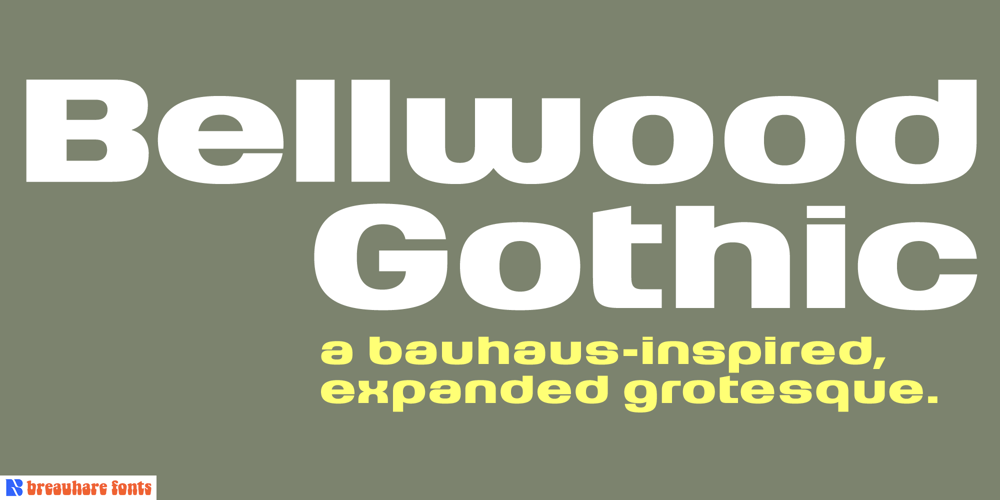
Bellwood Gothic Font Family was designed by Harry Warren and published by Breauhare. Bellwood Gothic contains 1 styles and family package options. Bellwood Gothic™ is an unorthodox but happy pairing of upper and lowercases that breaks typographic rules: its capitals evoke traditional early 20th century styling and strength. Lowercase displays a softer, more warm and friendly flavor that points to a Bauhaus aesthetic. But for some strange reason they work so well together! Therein lies the mystique of this font.Overall it isn’t strictly uniform in stroke but shows some variation of color.The sofa poster includes a cameo appearance by breauhare’s own popular Daddy’s Hand™ font.Bellwood Gothic’s nostalgic Hormel flavor of the 1960s & 1970s (no pun intended) still conveys a modern look that lends itself to sports, fashion, lifestyle and more. The wide track of the lettering helps short words easily fill spaces. Includes stylistic alternates for the lowercase a, e, & l (L), plus 13 uppercase letters!Among OpenType features are Stylistic Alternates, Stylistic Sets, Ligatures, Fractions, & Case-sensitive forms.Extended support for Western, Central, and Eastern European languages is included. Use it for headlines, subheads, branding, editorial, packaging, and logos!